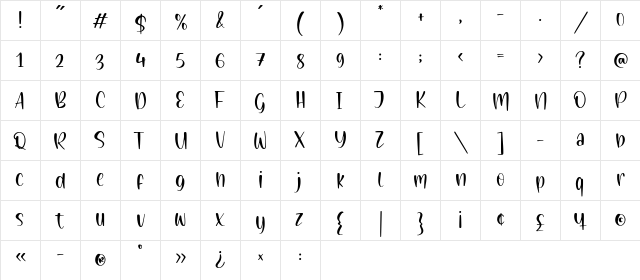
Painted Gallery Regular
| Designer | Balpirick Studio |
Design Context for Painted Gallery Typeface
Painted Gallery is a composed and adaptable typeface that performs quietly and consistently across a wide range of design contexts.